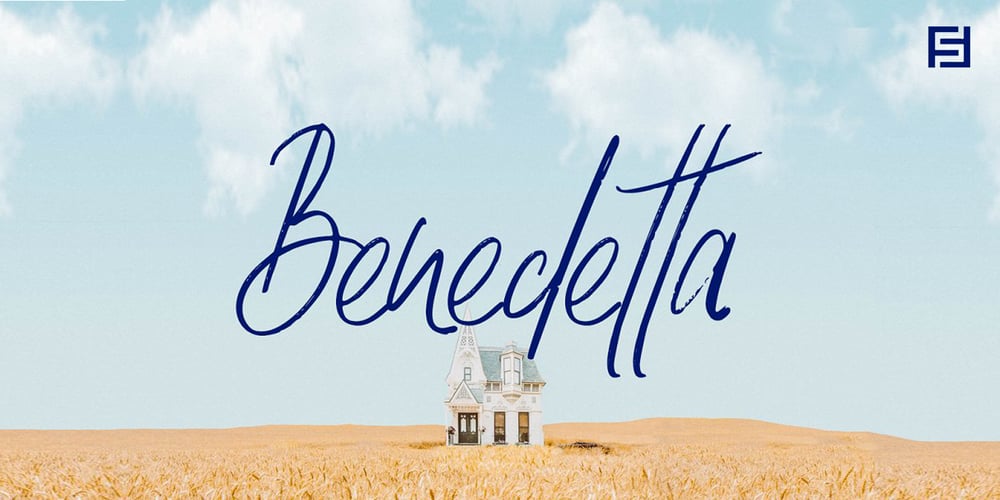
Benedetta Font Family was designed by Lisha Joseph and published by Designova. Benedetta contains 1 styles and family package options. Benedetta is a beautiful and lovely handwritten font for luxury / signature / branding / logotype / personal invites / greeting cards / promotional graphics. Benedetta is completely handmade with perfection and aesthetics at its level best.Advanced Kerning & Essential Ligatures:We have performed advanced, in-depth kerning to make sure the font looks amazing on all possible letter combinations. The font includes extended language support including Western European & Central European sets.